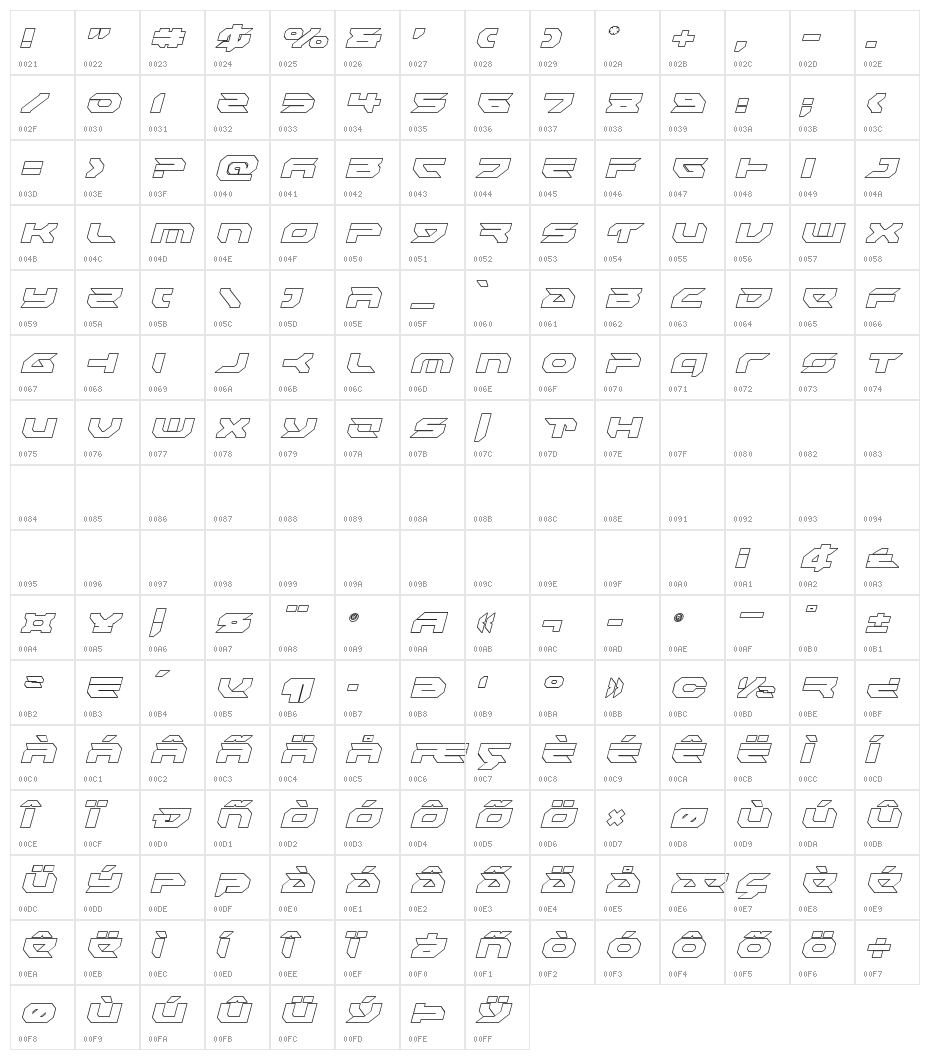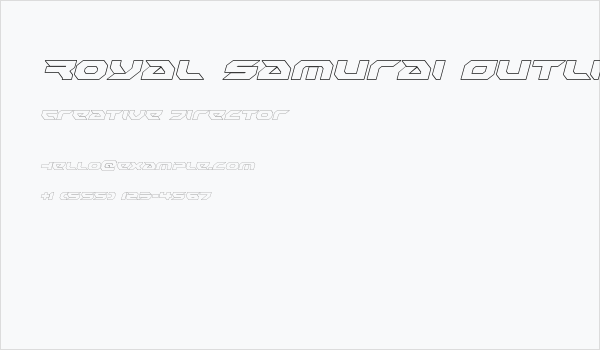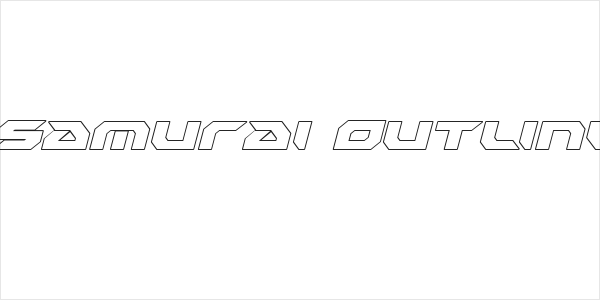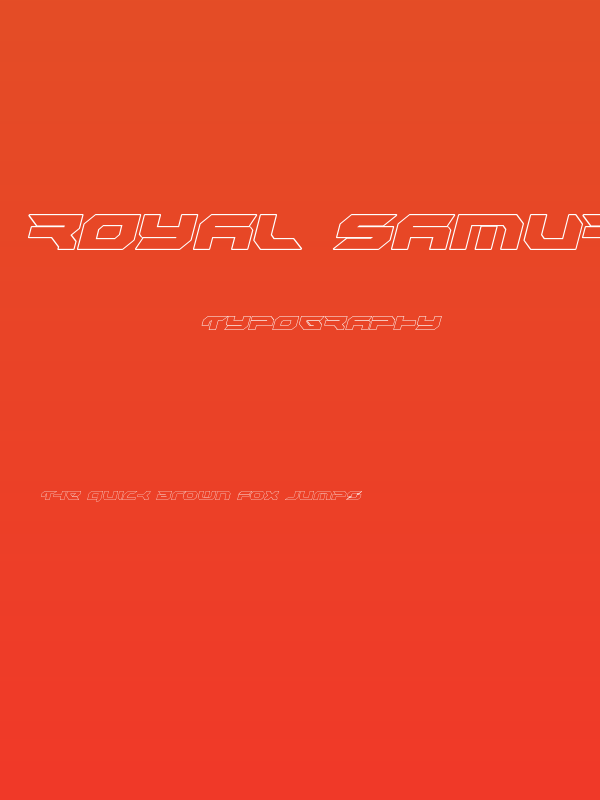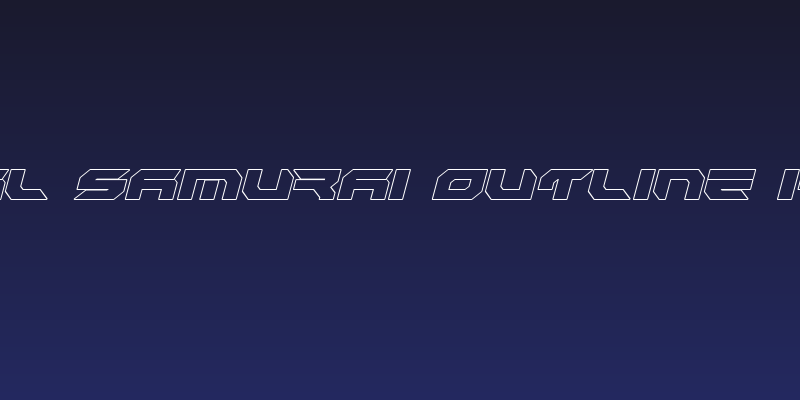
Royal Samurai Outline Italic Font
Royal Samurai Outline Italic Description
This font features a bold, geometric outline style with a futuristic and angular design. Each character is crafted with sharp edges and a consistent stroke width, creating a cohesive and modern appearance. The italic slant adds a dynamic and forward-moving feel, enhancing its contemporary aesthetic. The uppercase and lowercase letters maintain a uniform height, while the numbers and special characters are designed to match the overall style, ensuring versatility across various applications. The font's unique structure makes it stand out, ideal for projects that require a strong visual impact.
| Proposed Projects | Ideal for sci-fi themed designs, video game graphics, posters, and branding that requires a modern and edgy look. |